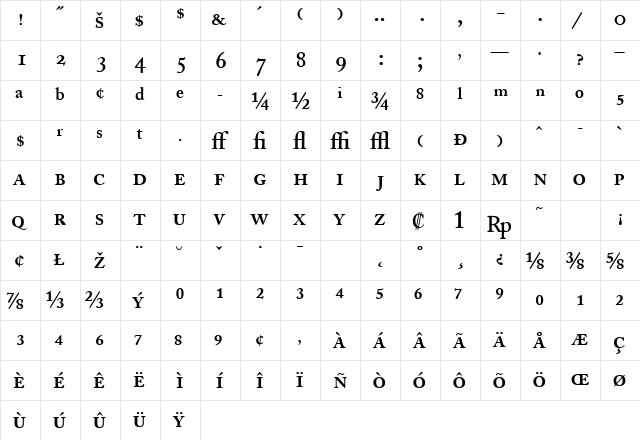
CaslonProSSK SemiBold
Design Context for CaslonProSSK Typeface
CaslonProSSK takes a measured approach to typography — its balanced proportions and neutral character make it a reliable workhorse for both digital and print work. Its bold stroke weight gives it real presence on the page.